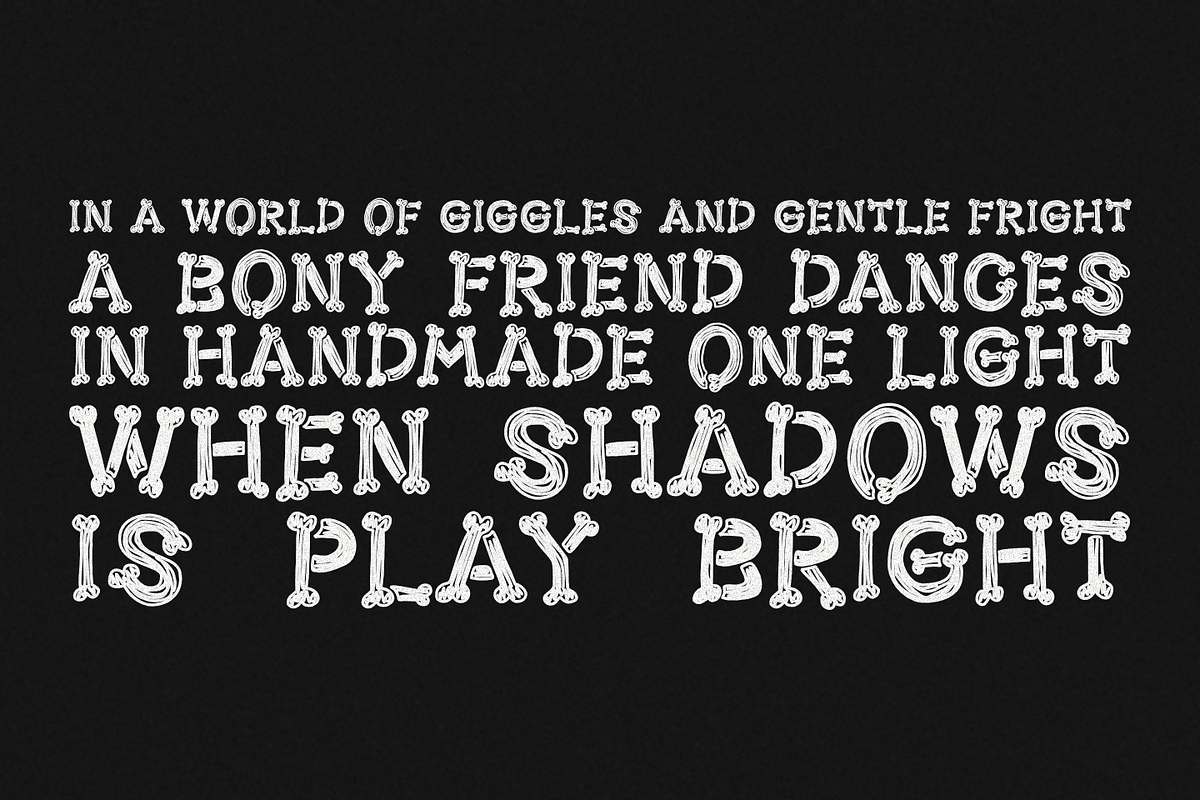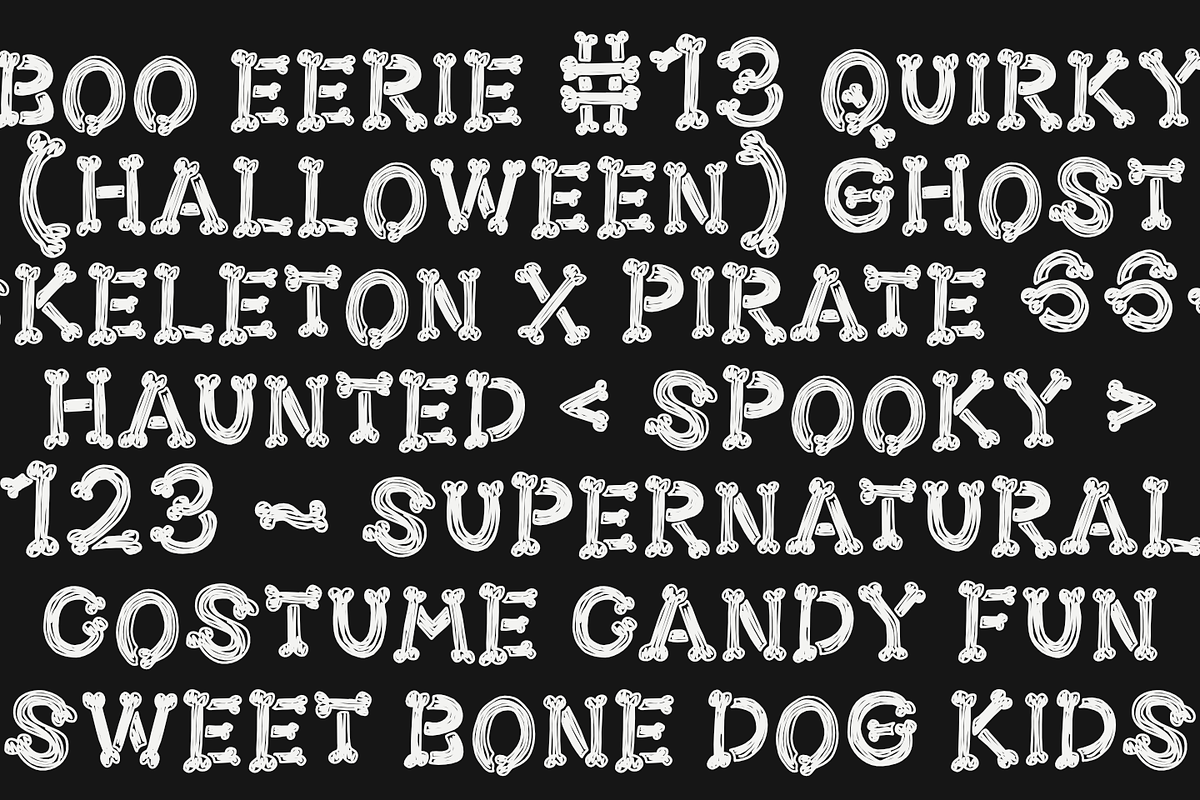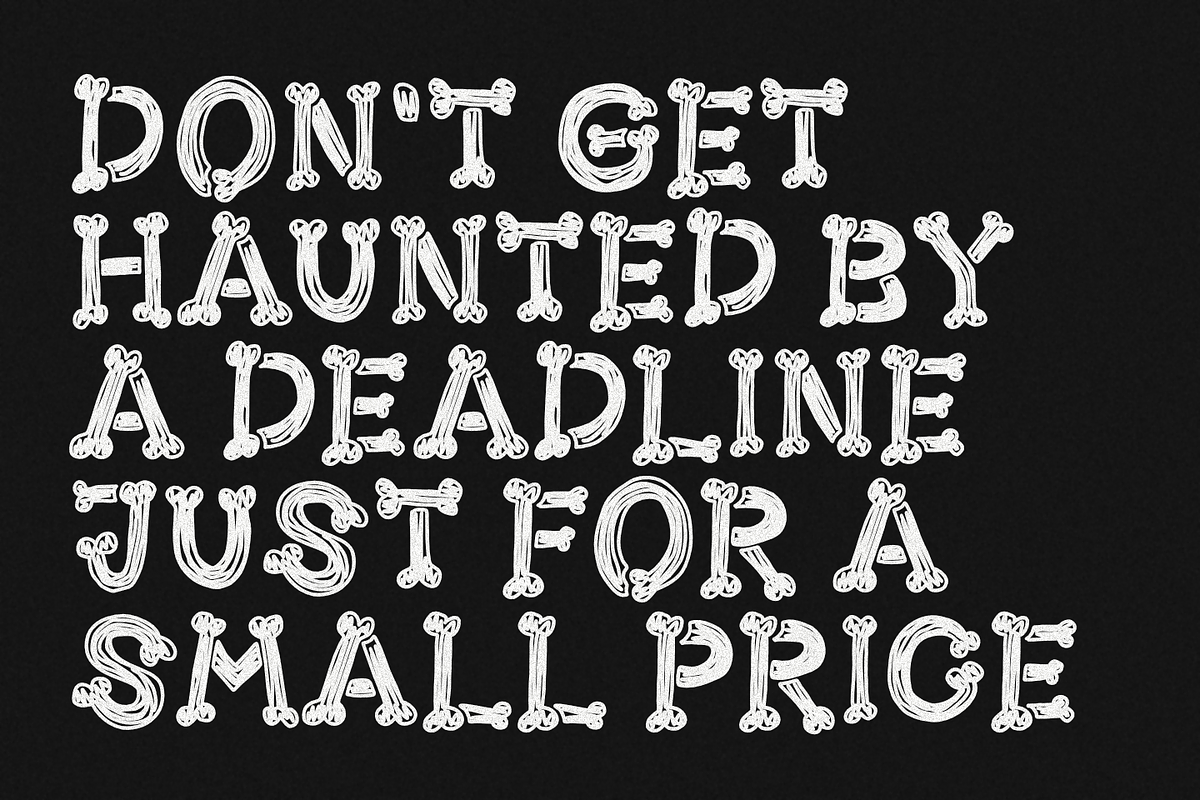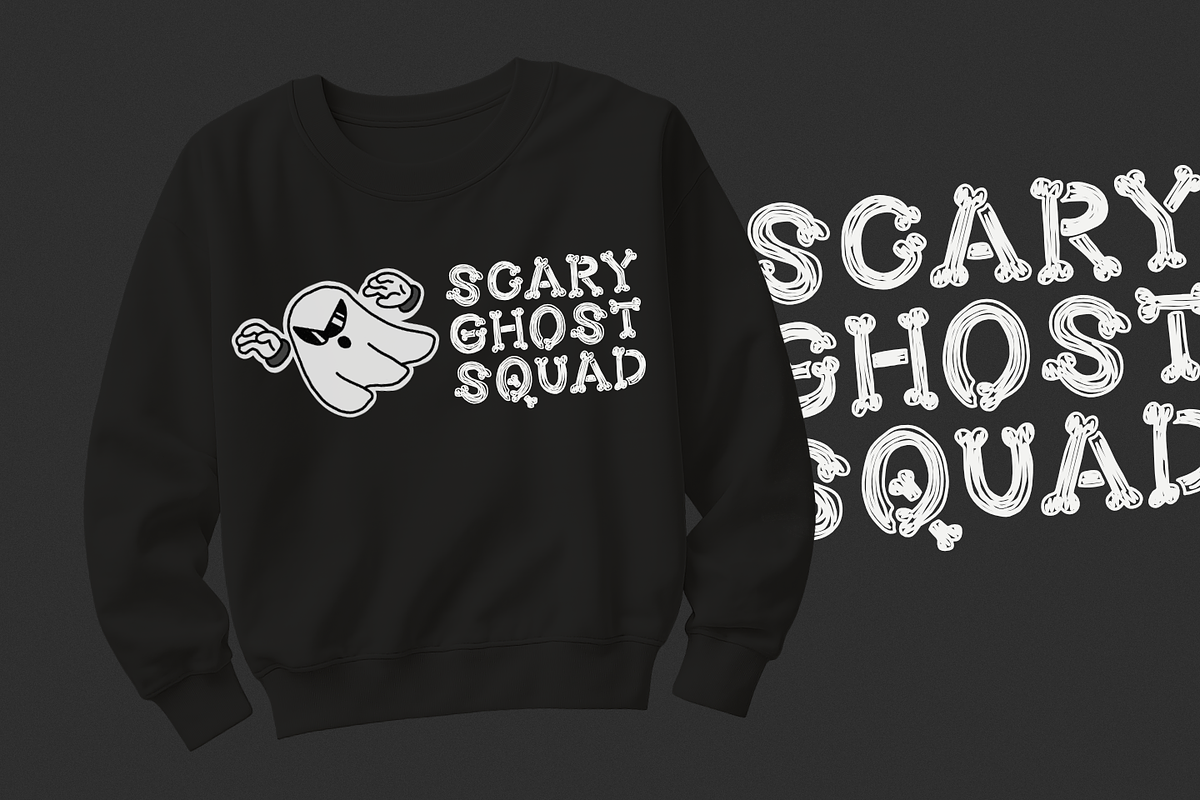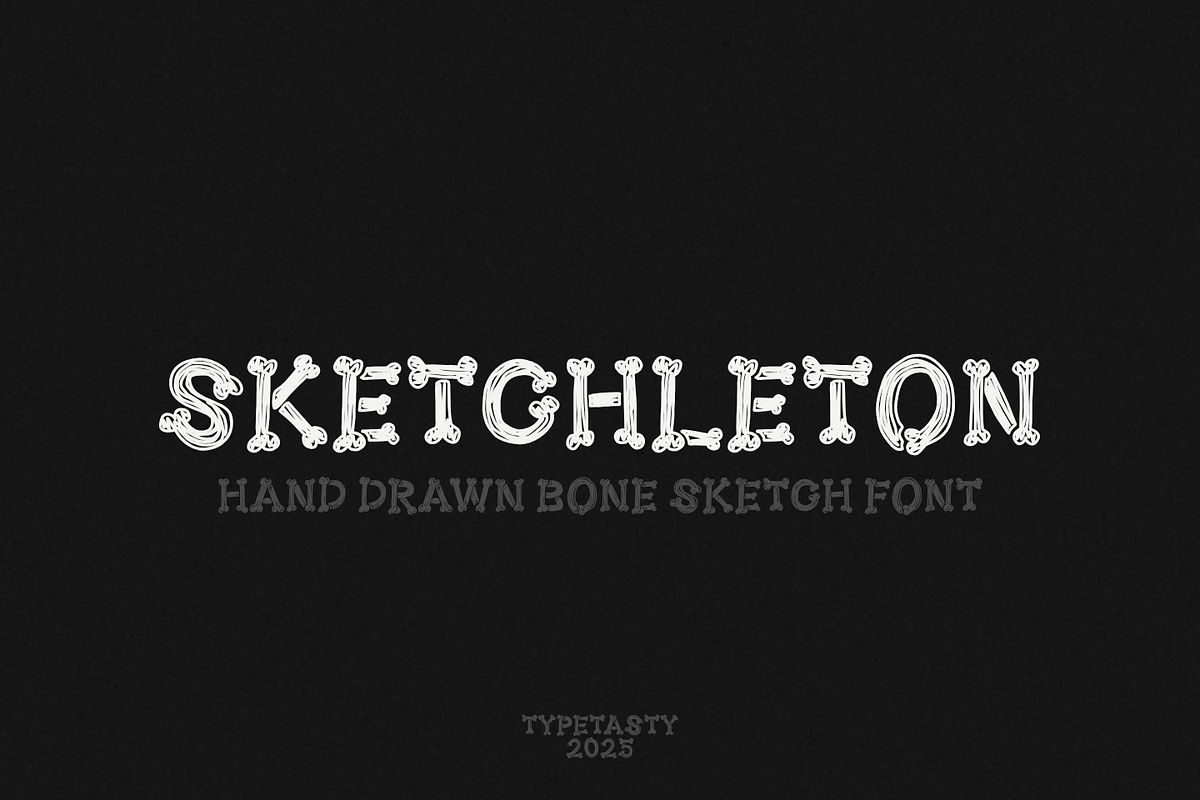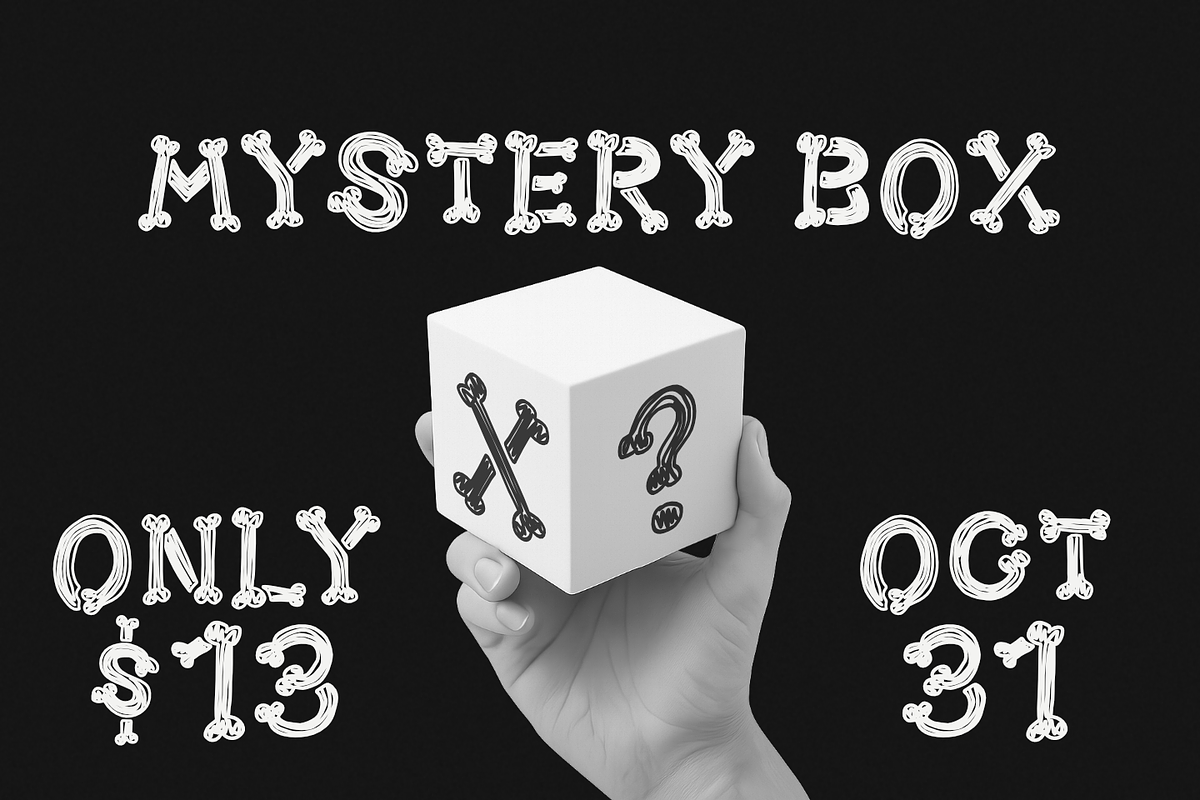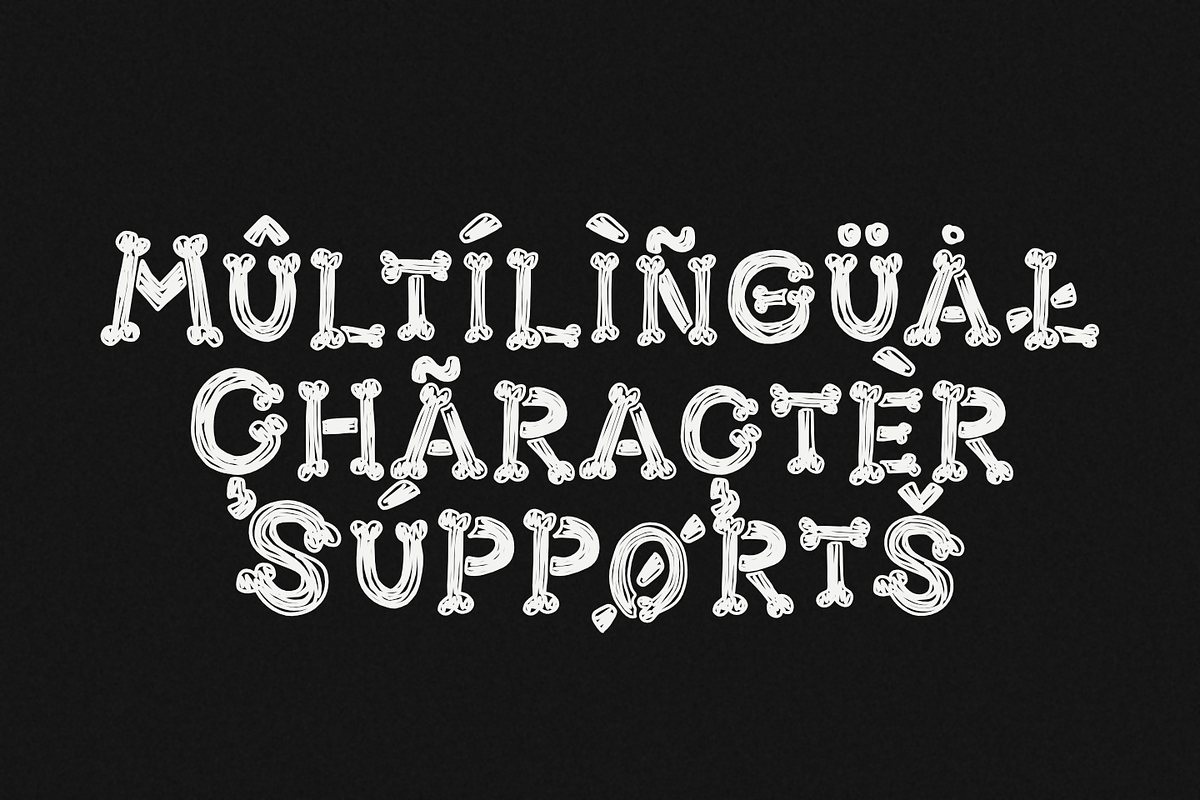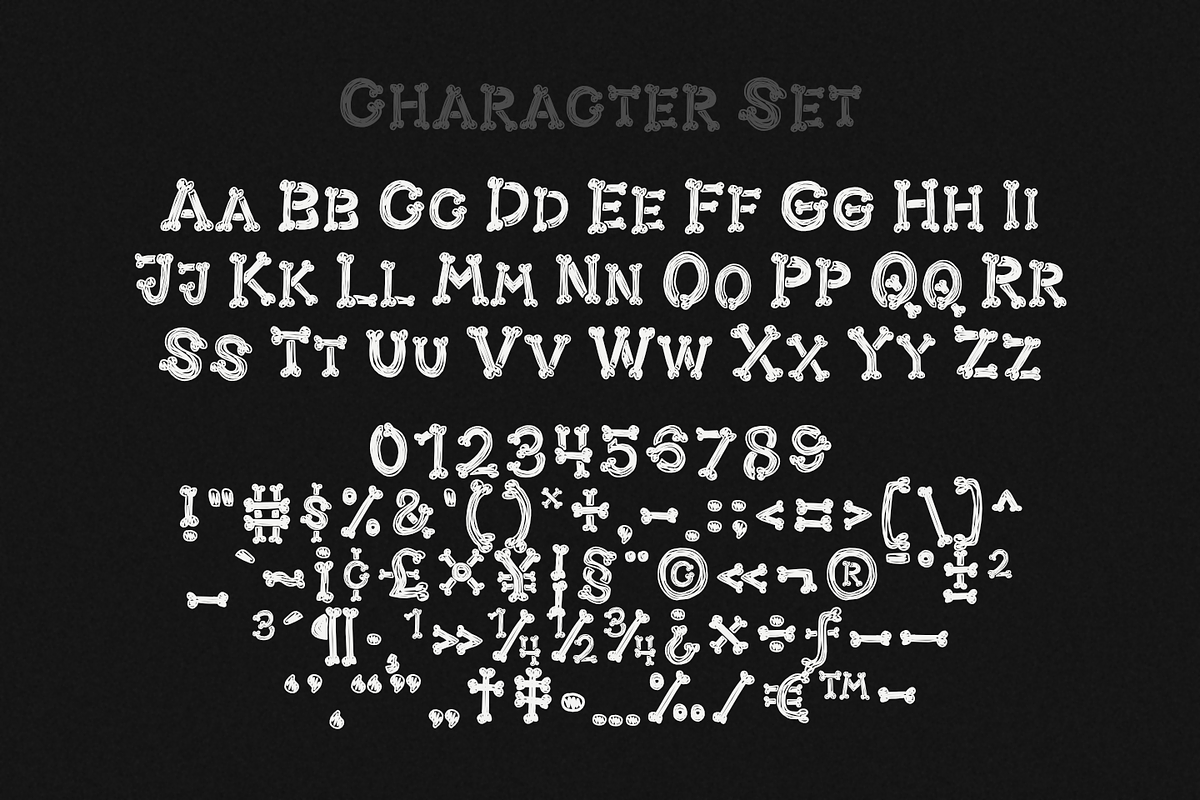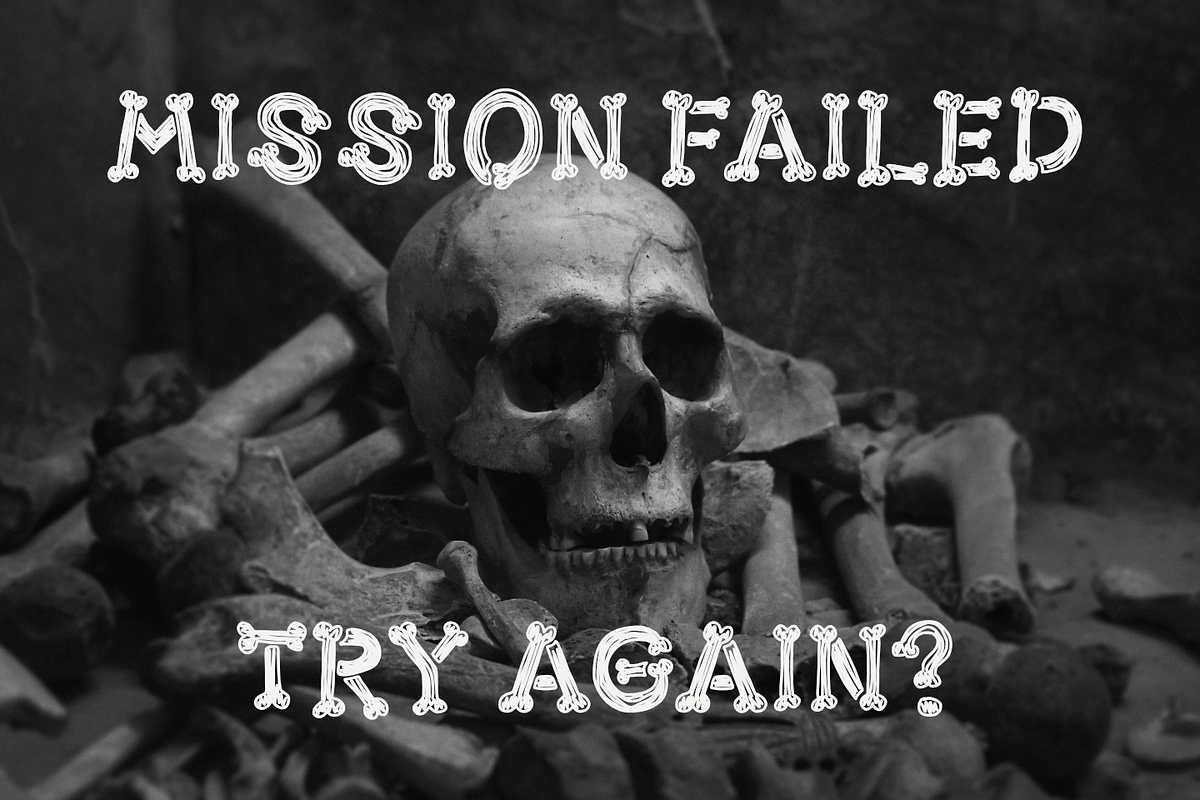
SKETCHLETON – Hand Drawn Bone Font
SKETCHLETON is a playful bone sketch display font designed for designers, creators, and brands who want to stand out with a spooky yet fun aesthetic. With its hand-drawn bone-inspired letters, this font is perfect for Halloween designs, children’s books, quirky packaging, social media content, and event branding. Whether you’re working on logos, posters, or merchandise, SKETCHLETON delivers a bold, creepy, yet lovable vibe that instantly grabs attention.
Style & Vibe: SKETCHLETON is a hand-drawn bone sketch display font that mixes a spooky yet playful energy. It feels quirky, fun, and slightly eerie perfect for Halloween themes, kids’ spooky stories, and eye-catching designs that need personality.
Intended Market Vibe: Great for Halloween posters, Instagram content, spooky party invitations, children’s books, merchandise, and edgy branding.
Letterform Structure: Handcrafted, sketch-like strokes with bone-inspired shapes. Each character feels organic and slightly irregular, giving it a raw, natural charm.
Best Use Cases:
Branding & Logos (Halloween shops, quirky brands, pet & spooky products)
Social Media Graphics (Instagram posts, TikTok covers, seasonal campaigns)
Packaging (snacks, candy, spooky-themed goods)
Children’s Books & Storytelling
Event Posters & Merch
Bring your spooky visions to life with SKETCHLETON, the bone-sketch font that blends creepy charm with playful energy crafted for designers who want their projects to instantly grab attention during Halloween and beyond.
Why Designers Love It:
Unique Bone Sketch Look → Hand-drawn effect that feels spooky yet approachable.
Versatile Use → Works for kids’ projects, Halloween branding, edgy packaging, and social campaigns.
Instant Atmosphere → Adds creepy, playful personality without extra design effort.
Easy to Pair → Combine with bold sans-serif fonts for maximum contrast.
Halloween branding 🎃
Spooky event invitations 🦴
Merchandise & packaging 👕🍬
Social media graphics 📱
Children’s book titles 📖